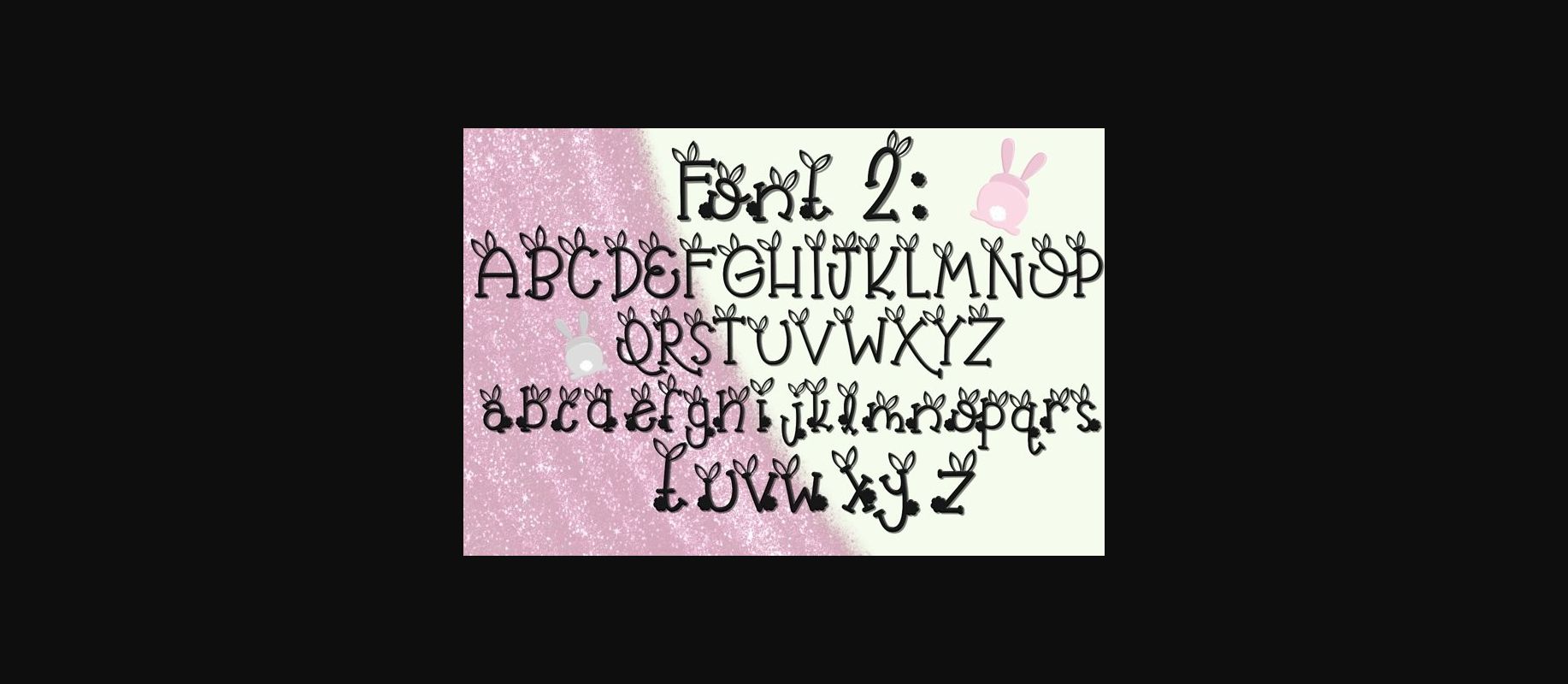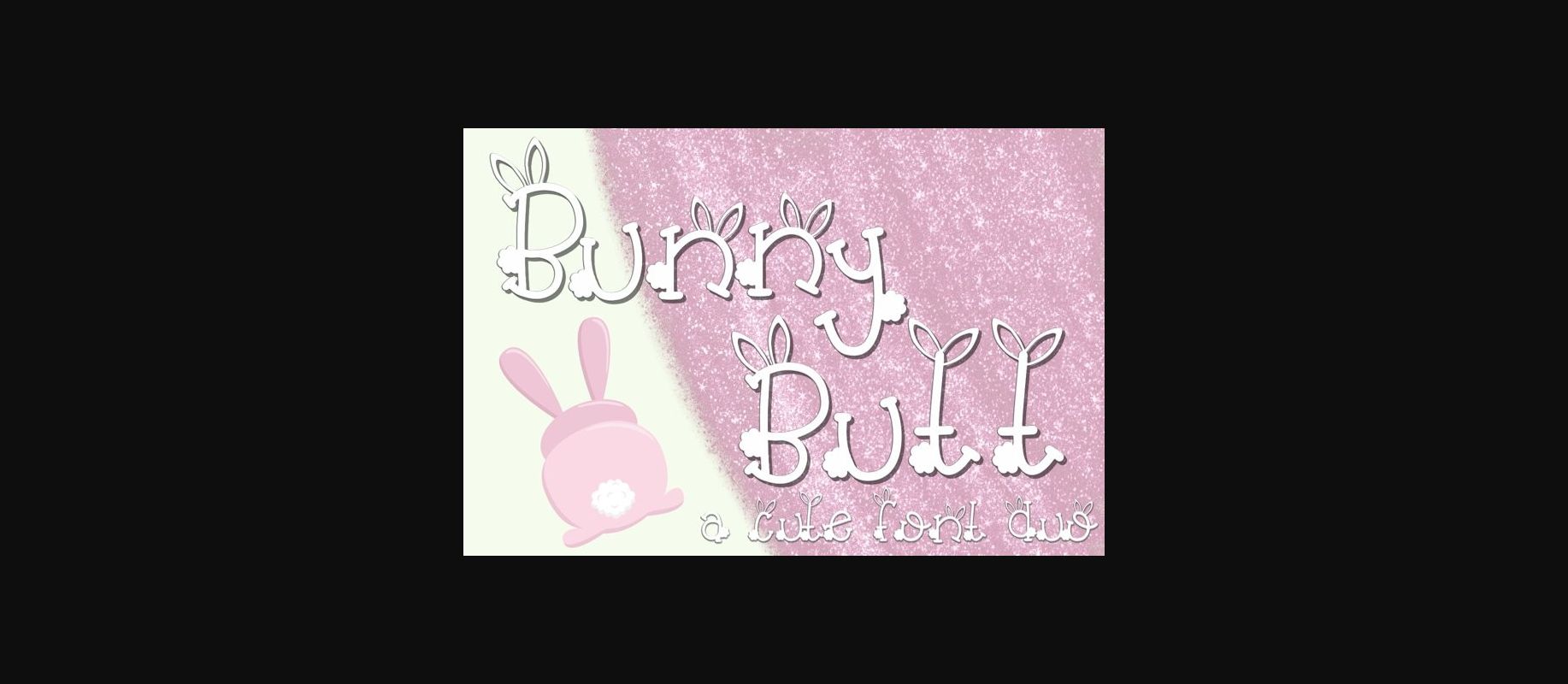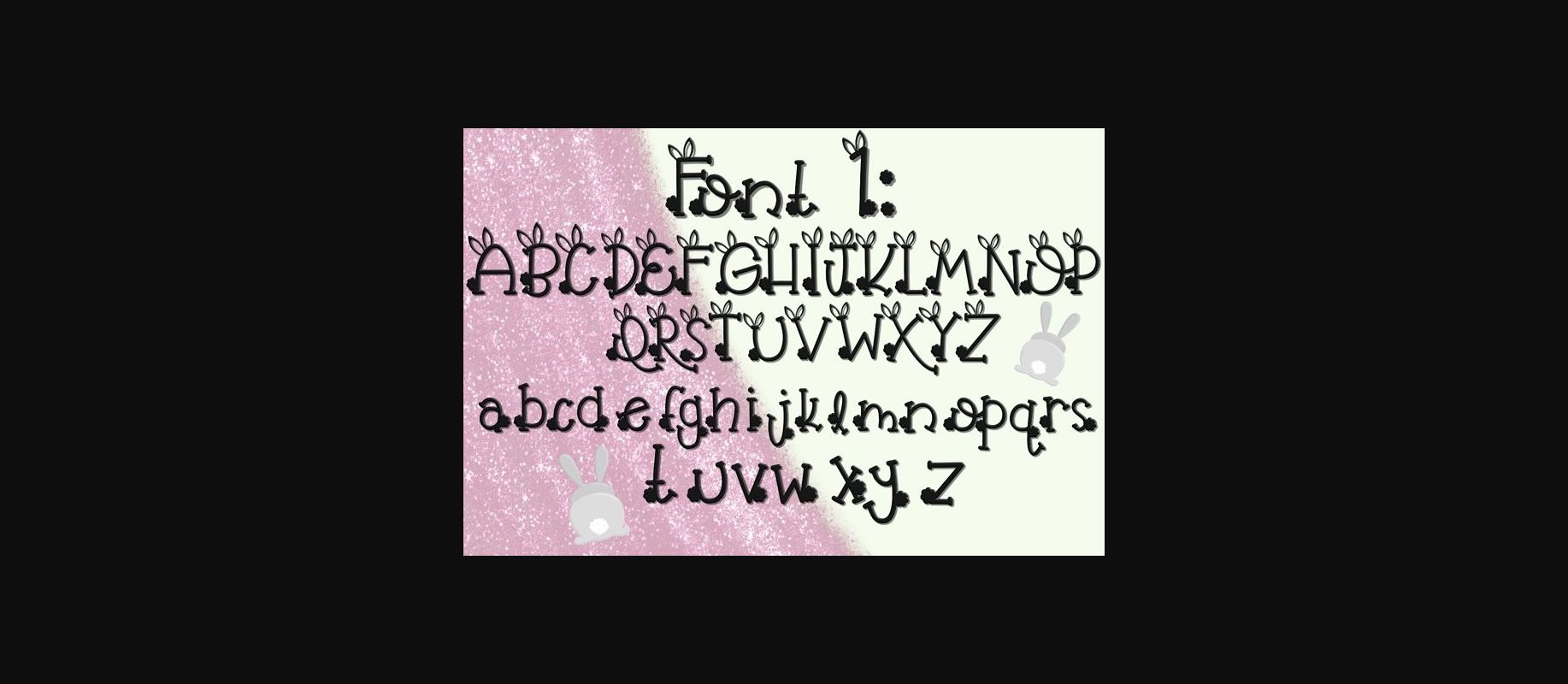
About Bunny Butt Duo Font
Bunny Butt is a sweet and adorable handwritten decorative font duo full of bunny ears. Its lovely and quirky appearance will make any creative project look cute and incredibly friendly.